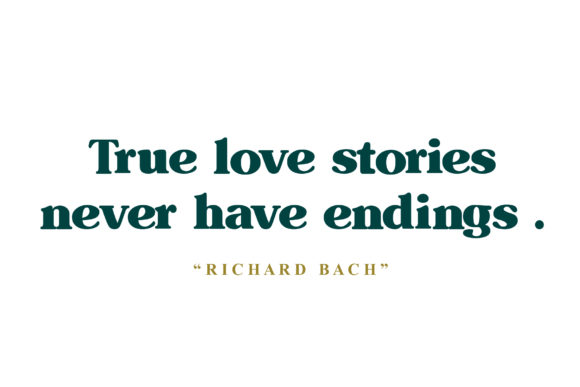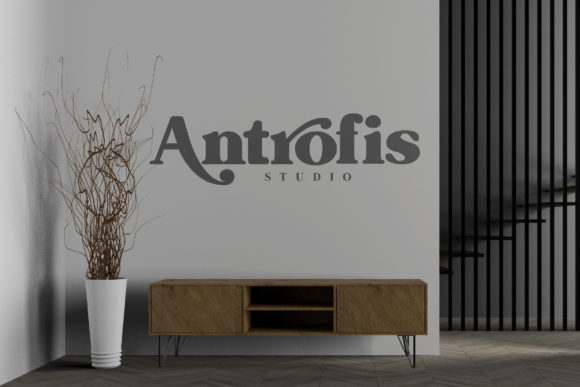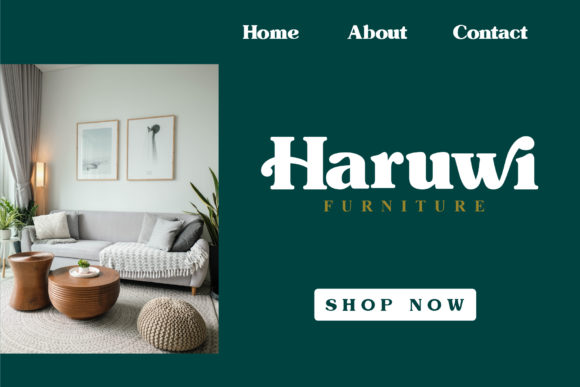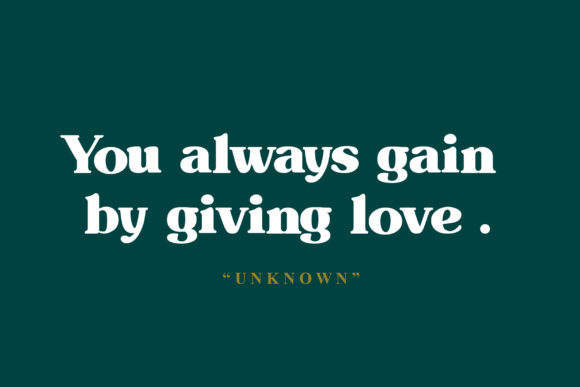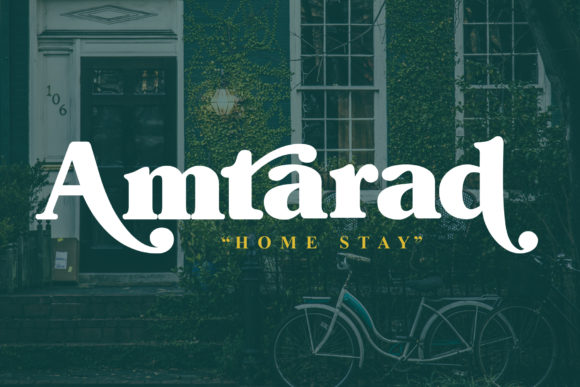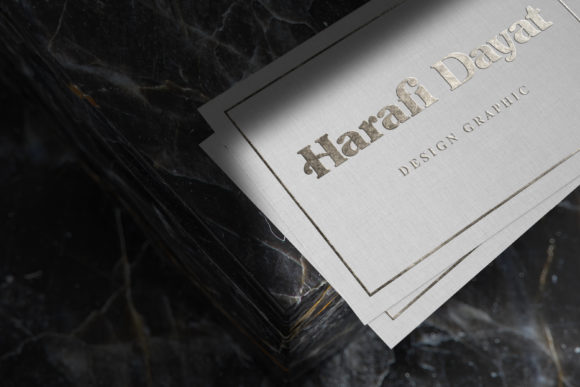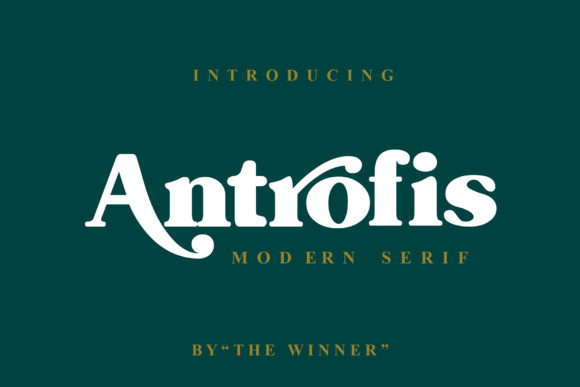
Introducing Antrofis Font: The Ultimate Display Font for Creative Projects
Are you tired of using the same old fonts for your creative projects? Look no further than Antrofis Font, a chunky lettered and distinct display font that’s sure to take your designs to the next level. Masterfully designed to become a true favorite among designers and crafters, Antrofis Font has the potential to bring each of your creative ideas to the highest level.
What Makes Antrofis Font So Special?
Antrofis Font is a one-of-a-kind display font that’s perfect for making a statement. Its chunky letters and unique design make it stand out from the crowd, adding a touch of personality to any project. Whether you’re working on a logo, poster, or social media graphic, Antrofis Font is sure to grab attention and leave a lasting impression.
Key Features of Antrofis Font
• Chunky Lettering: Antrofis Font features thick, bold letters that are perfect for creating eye-catching headlines and titles.
• Distinct Design: The font’s unique design makes it easy to recognize and remember, adding a touch of personality to any project.
• High Versatility: Antrofis Font can be used for a wide range of projects, from logos and posters to social media graphics and more.
• Easy to Read: Despite its bold design, Antrofis Font is easy to read, making it perfect for use in a variety of contexts.
How to Use Antrofis Font in Your Designs
Antrofis Font is incredibly easy to use, even for those who are new to design. Here are a few tips for incorporating Antrofis Font into your projects:
• Use it as a Headline Font: Antrofis Font is perfect for use as a headline font, adding a bold and eye-catching touch to any project.
• Pair it with Other Fonts: Antrofis Font pairs well with a variety of other fonts, making it easy to create visually appealing combinations.
• Experiment with Colors: Antrofis Font looks great in a variety of colors, so don’t be afraid to experiment and find the perfect hue for your project.
Benefits of Using Antrofis Font
There are many benefits to using Antrofis Font in your designs. Here are just a few:
• Increased Visibility: Antrofis Font is sure to grab attention and increase visibility for your project.
• Improved Brand Recognition: The unique design of Antrofis Font can help to improve brand recognition and make your project more memorable.
• Enhanced Creativity: Antrofis Font can help to inspire creativity and bring new ideas to life.
Who Can Benefit from Using Antrofis Font?
Antrofis Font is perfect for a wide range of designers and crafters, including:
• Graphic Designers: Antrofis Font is a great addition to any graphic designer’s toolkit, perfect for use in a variety of projects.
• Logotype Designers: The unique design of Antrofis Font makes it perfect for use in logotypes and branding projects.
• Crafters: Antrofis Font is also great for crafters, perfect for use in a variety of DIY projects.
Antrofis Font is a powerful and versatile display font that’s perfect for designers and crafters looking to take their projects to the next level. With its chunky lettering, distinct design, and high versatility, Antrofis Font is sure to become a true favorite. Whether you’re working on a logo, poster, or social media graphic, Antrofis Font is the perfect choice.